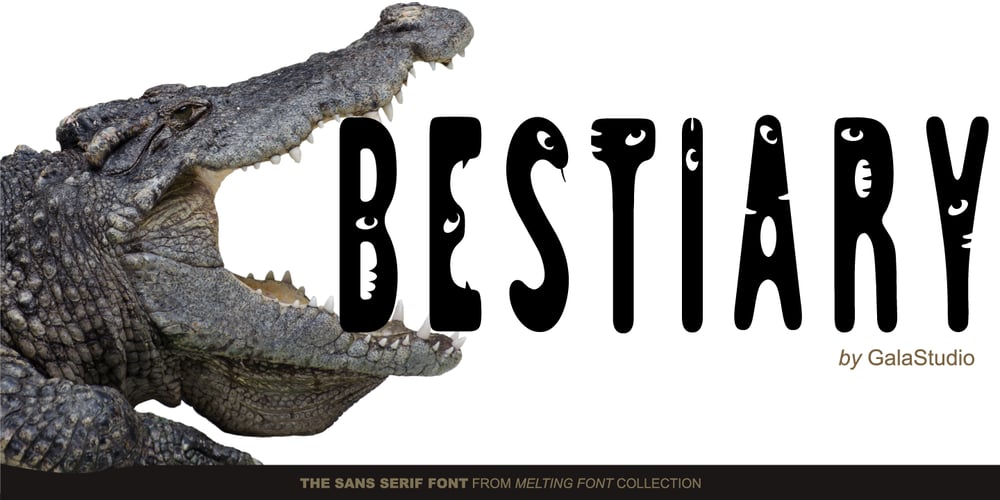
GS Slim One Bestiary
GS Slim One Bestiary font
GS Slim One Bestiary Font Family was designed by Galina Bleikh, Lilia Chak and published by GalaStudio. GS Slim One Bestiary contains 1 styles and family package options. We, GalaStudio (Lilia & Galina) represent the SlimOne BESTIARY font from our MELTING FONTS collection. It is a decorative style version of the SlimOne font family, which we designed by playing with glyphs: we converted them into funny animals and thus created a “zoo”. One can use the BESTIARY font for children’s books and notebooks as well as for all kinds of funky advertising, social media, greeting cards and comics. INCLUDED: GS_SlimOne_Bestiary.otf GS_SlimOne_Bestiary.ttf Numbers, additional glyphs & basic punctuation are included. PERFECT FOR: using in books titles, textbooks, notebooks, different brochures and advertising, especially for kids, home-ware design, packaging design; magazines, posters and flyers titles; logos design, books design, fashion design, slogans etc. 🙂 Multilingual support included for the languages based on Latin alphabet.